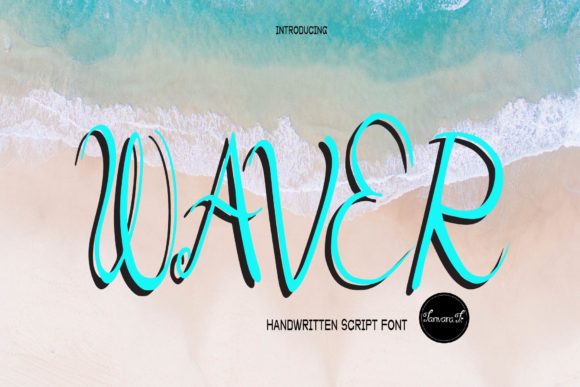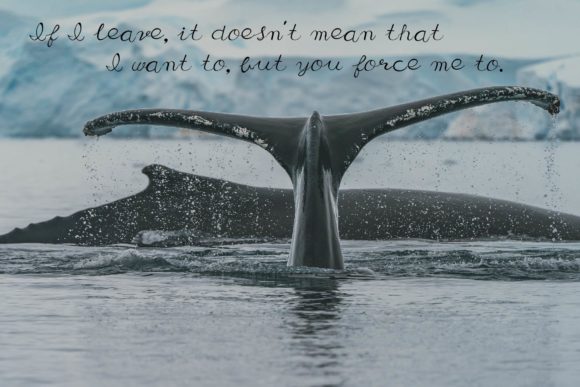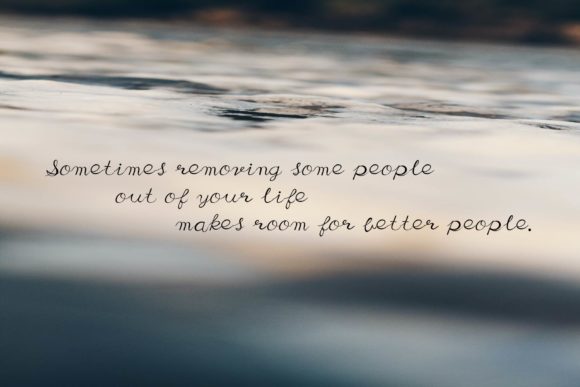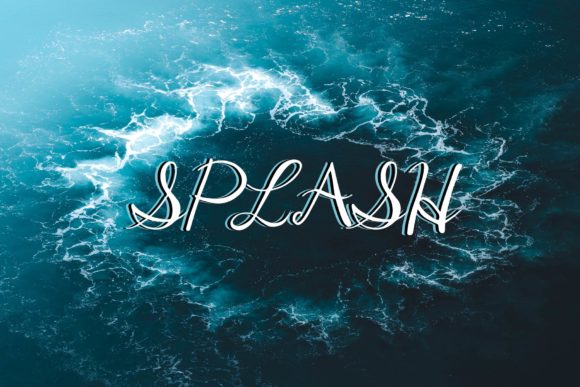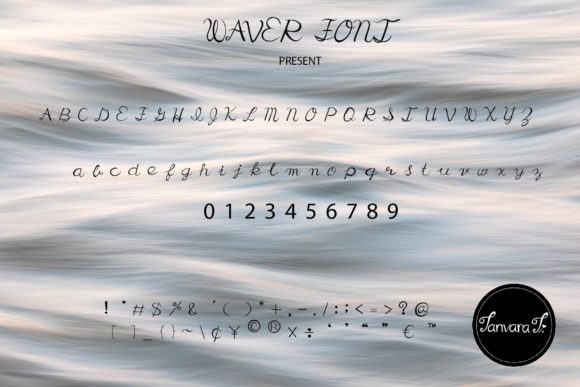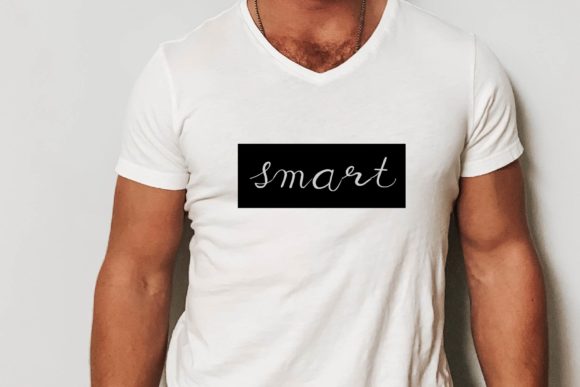
Waver Font
About Waver Font
Waver is bouncy handwritten font. Clean and a little bit quirky, this font is the perfect fit for all of your logos, branding, social media, and crafty DIY projects.